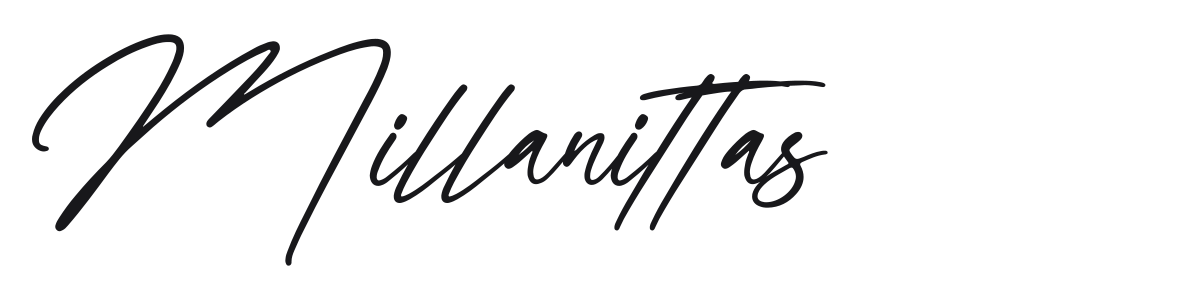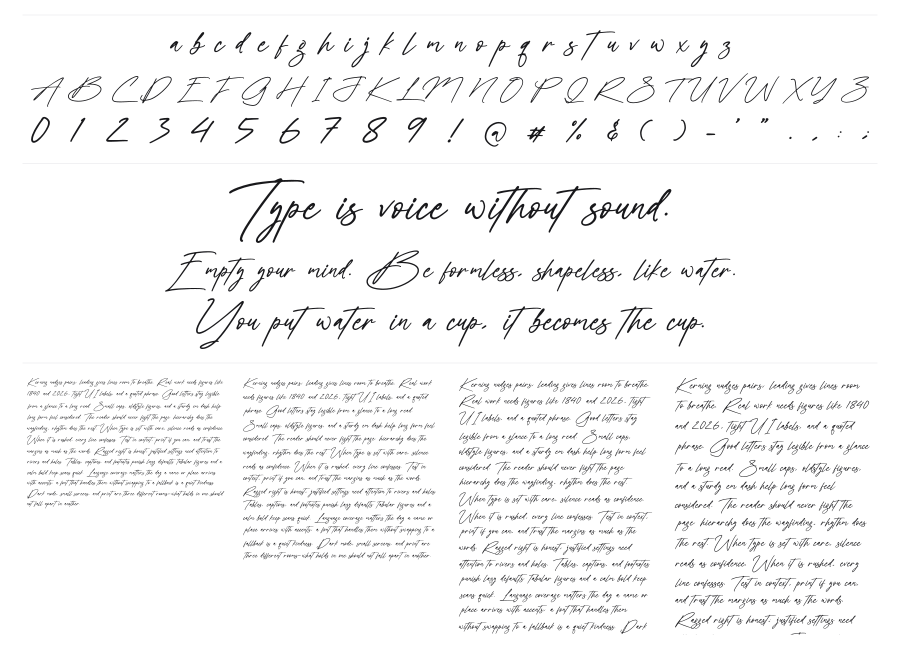
Millanittas
Millanittas is a light, flowing casual script with an effortless handwritten quality and long, sweeping strokes. Its connected letters move with natural rhythm across the baseline, striking a balance between relaxed and refined. It sits comfortably in wedding stationery, boutique branding, and packaging where a personal, handcrafted touch is the point.